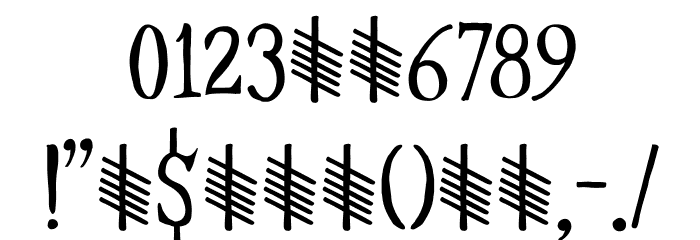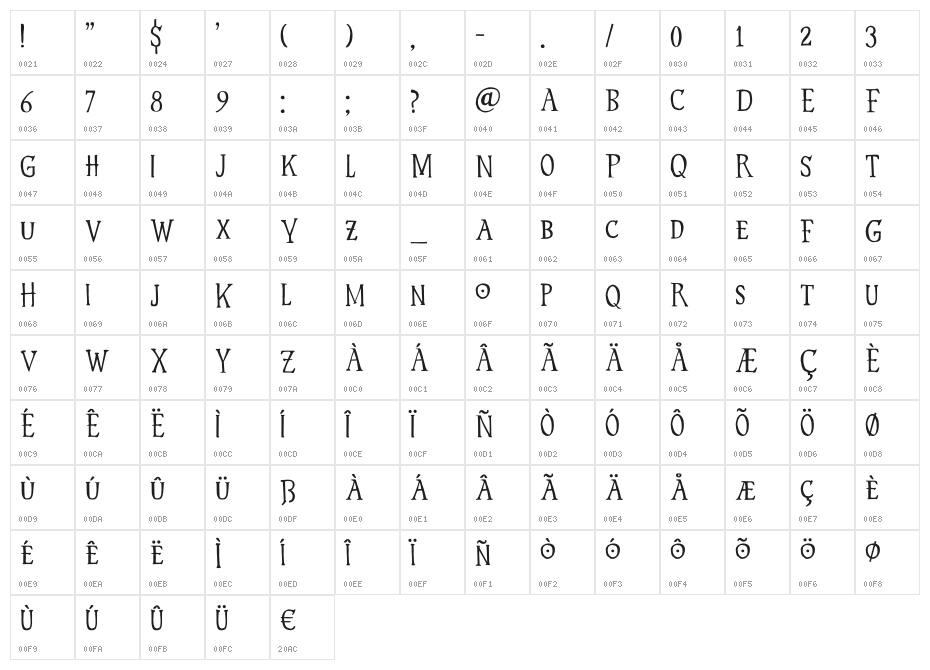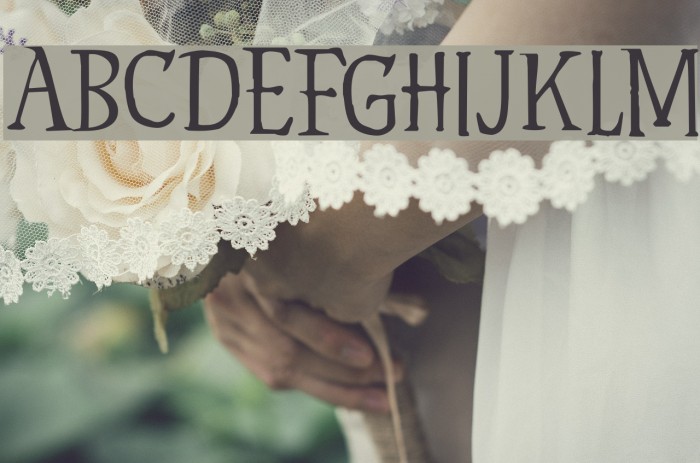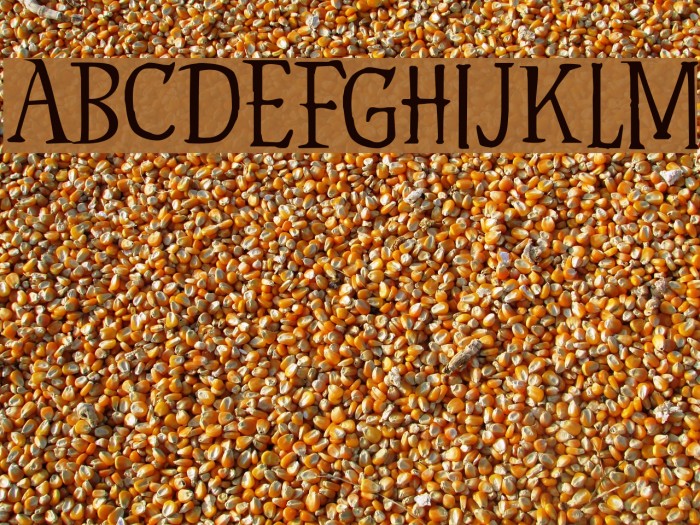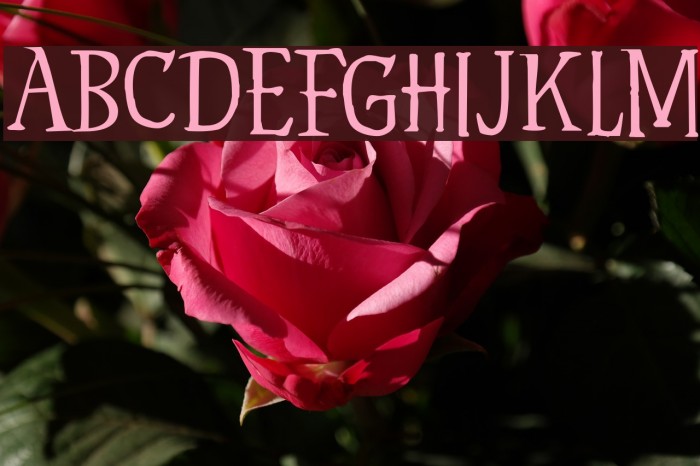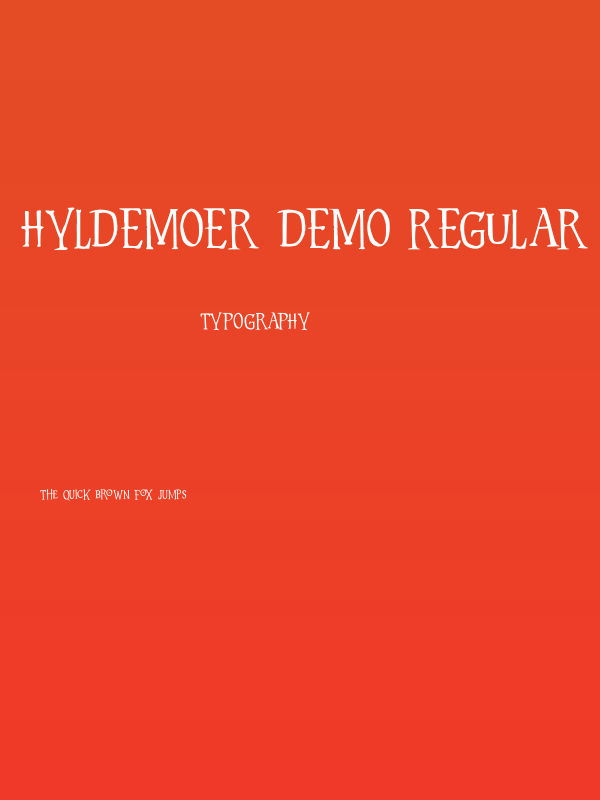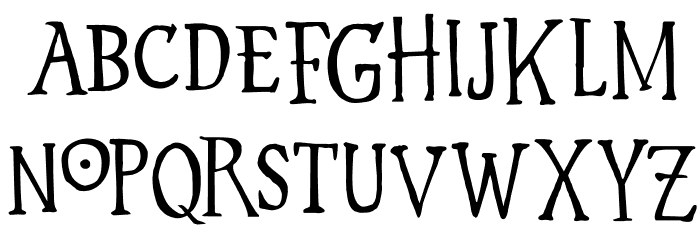
Hyldemoer DEMO Regular Font
Hyldemoer DEMO Regular Description
This font features a unique, decorative style with a hand-drawn appearance. The characters are tall and narrow, with a slight irregularity that adds to its charm. The uppercase letters have a distinctive flair, with some strokes extending beyond the baseline or cap height, giving it a whimsical touch. The lowercase letters maintain the same playful style, with consistent stroke widths that provide a cohesive look. The numerals are equally stylized, with creative elements that make them stand out. Special characters are designed to match the overall aesthetic, ensuring a harmonious appearance across all glyphs.
| Use Case | Logos, Posters, Invitations |
| Proposed Projects | Ideal for creative projects such as invitations, posters, and branding materials that require a unique and artistic touch. |